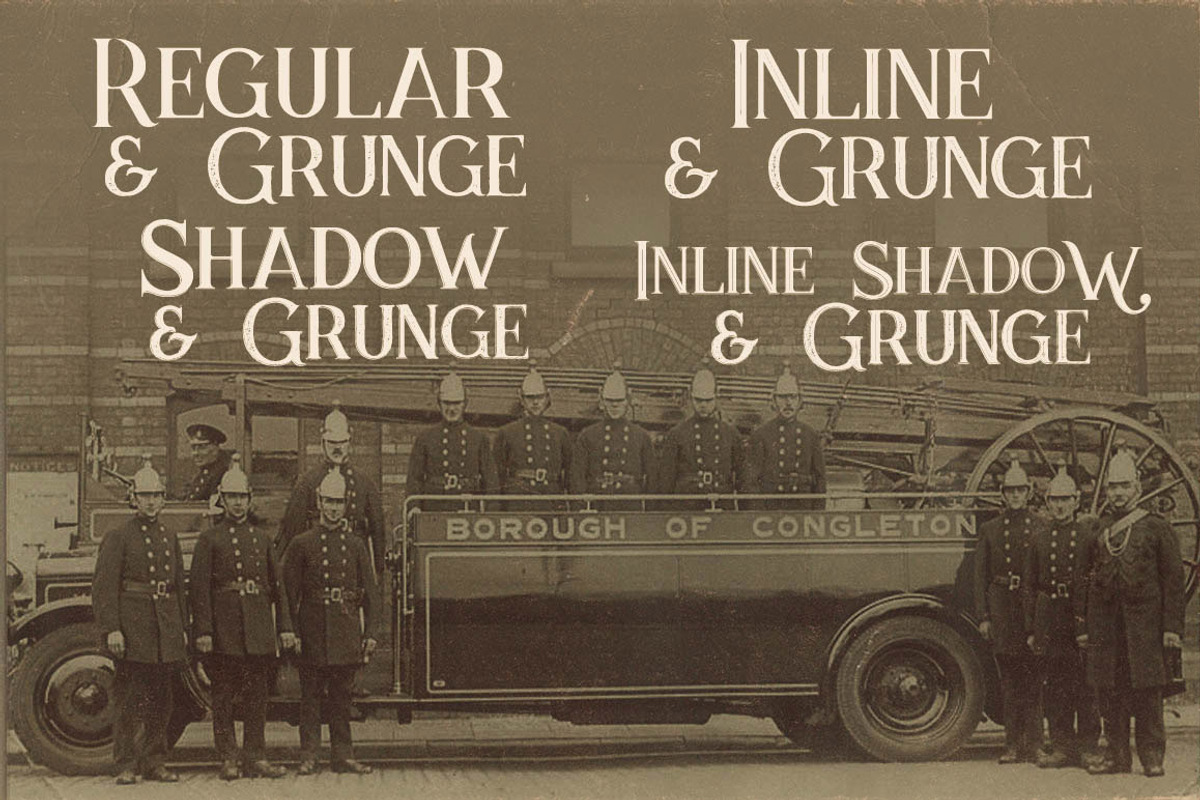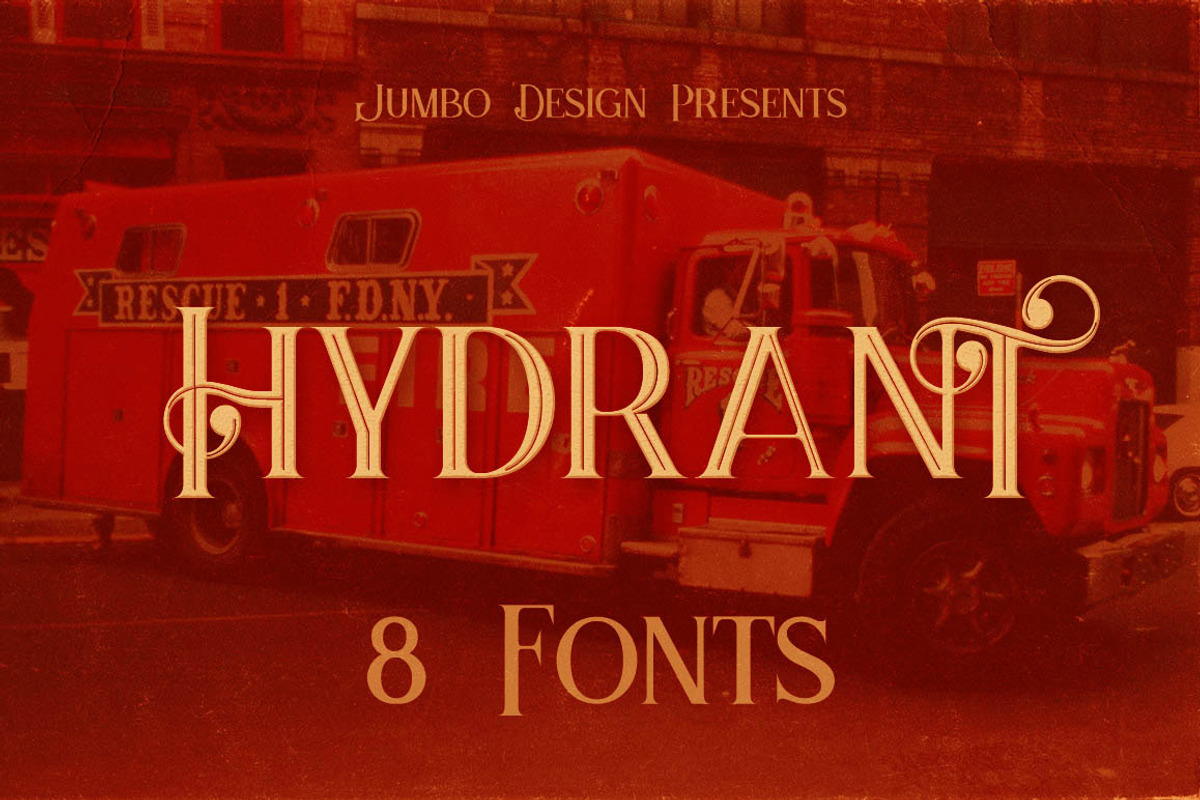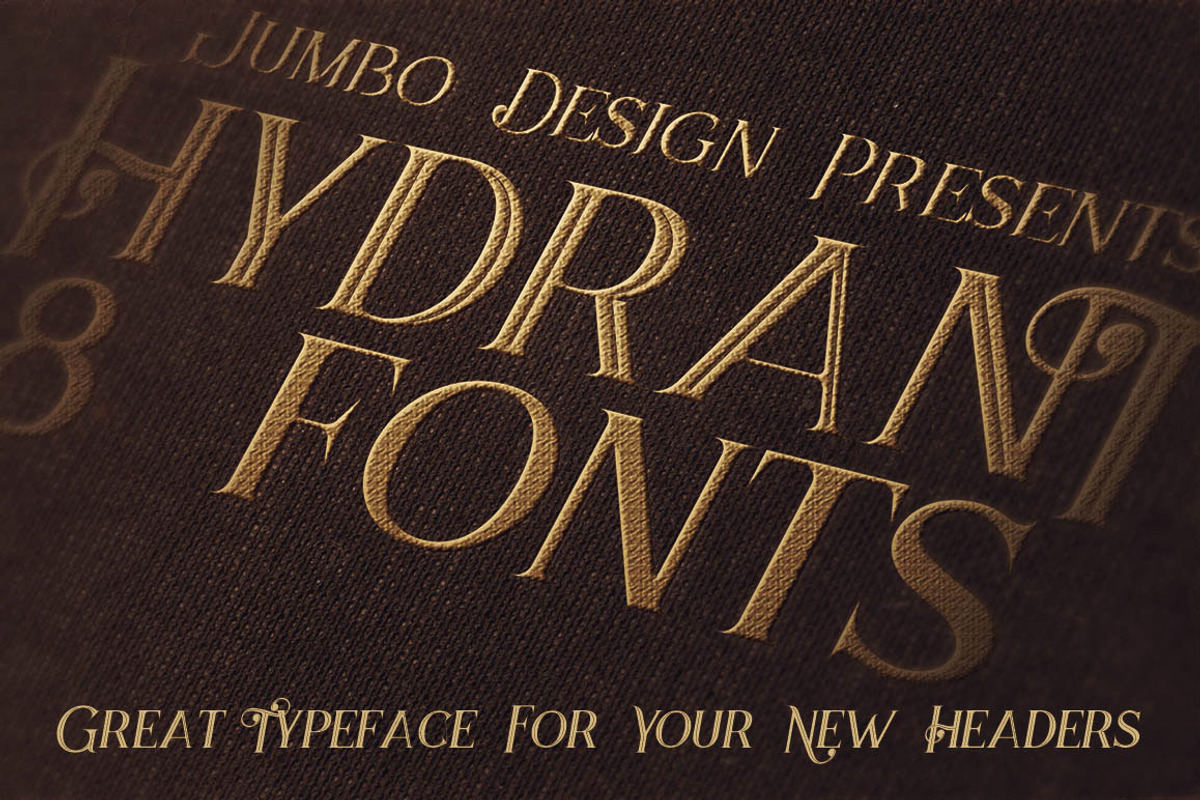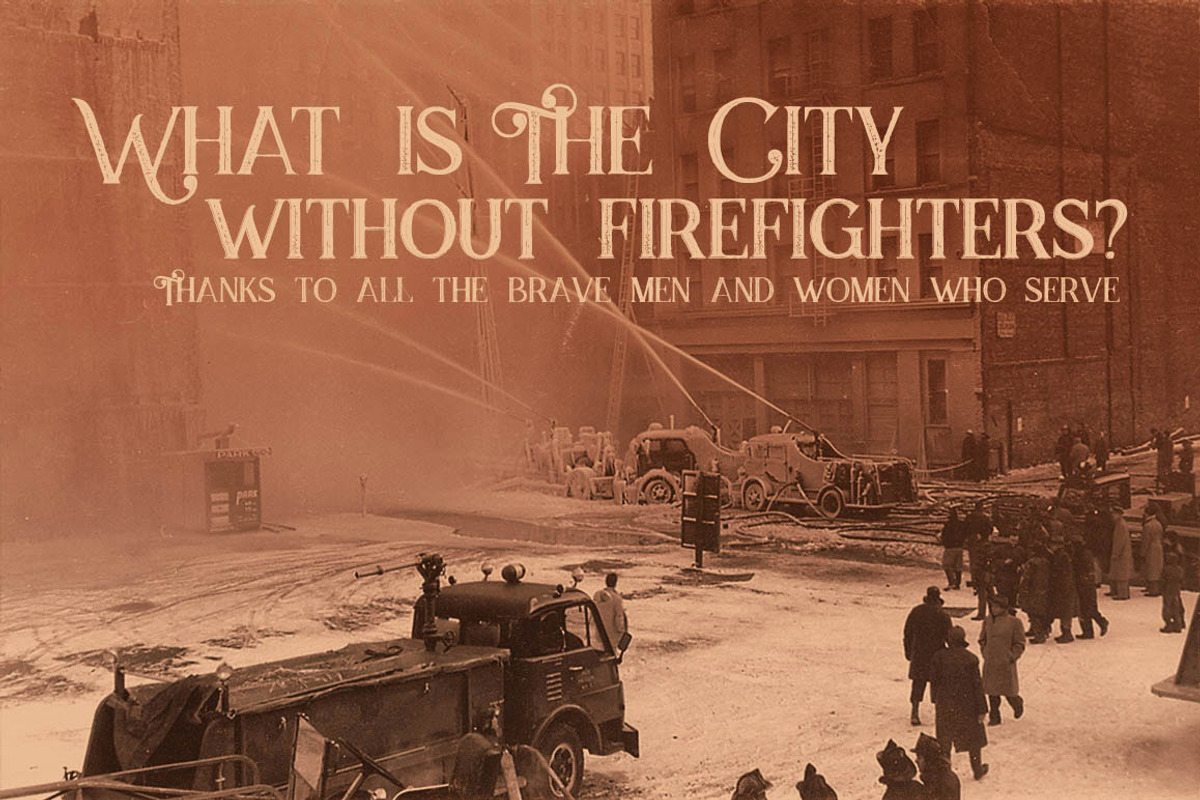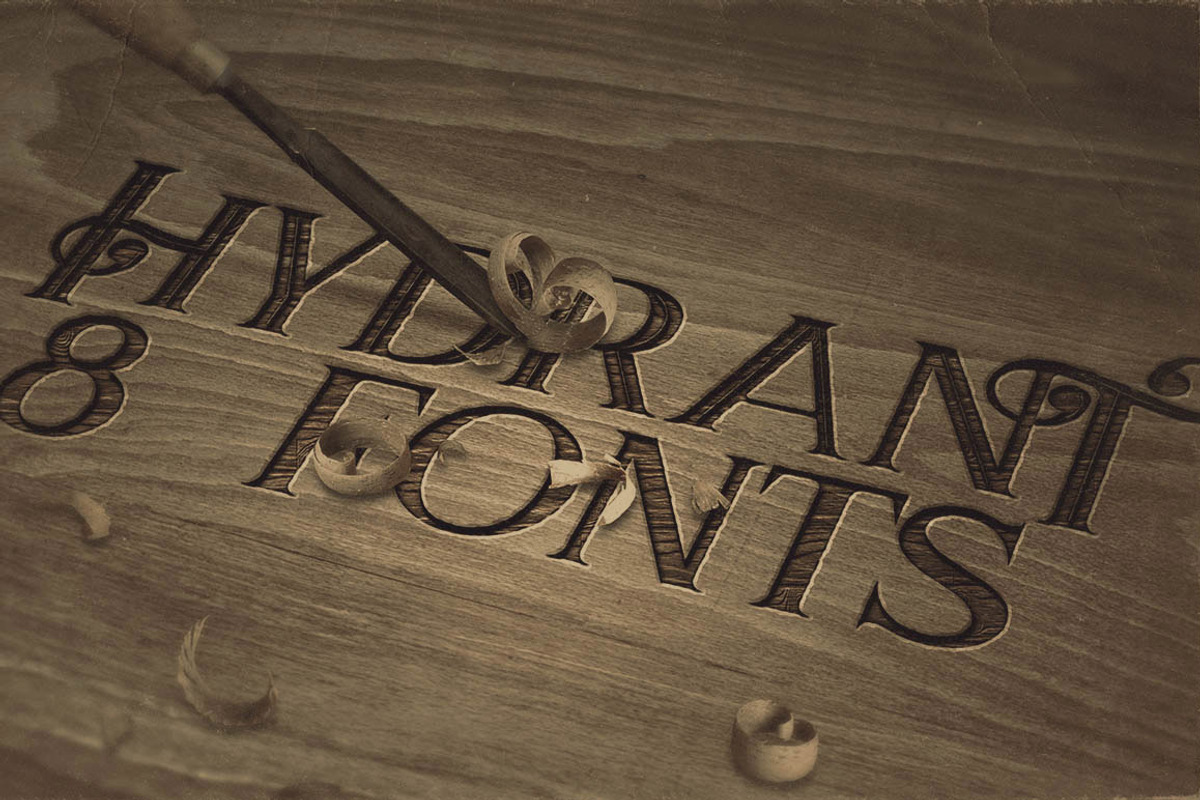
Hydrant - Vintage Style Font
Hydrant - Vintage Style Font by JumboDesign is a font selected for branding, posters, packaging, typography.
Why Hydrant - Vintage Style Font is worth a look
Hydrant - Vintage Style Font by JumboDesign fits naturally into Branding, posters, packaging, typography.